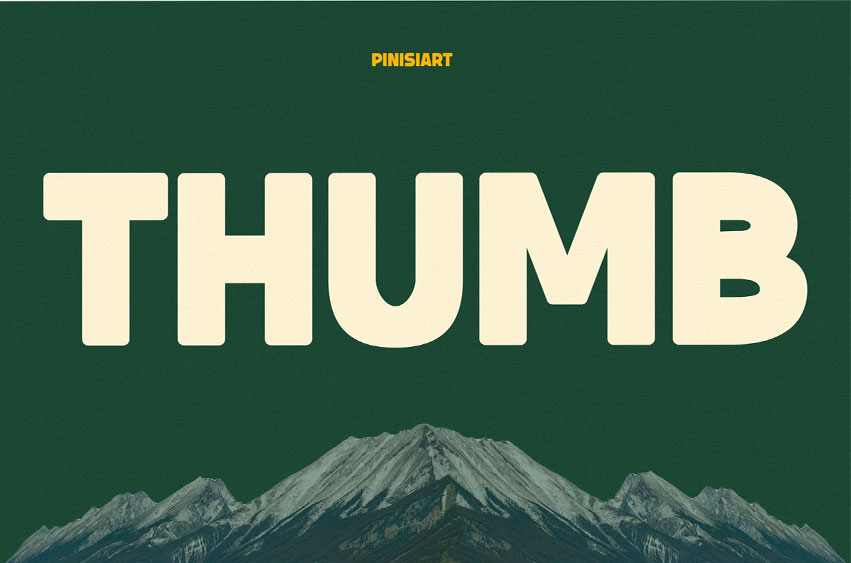
Thumb Font
Thumb Font is a bold retro display typeface that fuses vintage warmth with modern clarity. Each letter carries geometric balance, confident width, and smooth corners—creating a timeless look with strong visual rhythm. The sturdy proportions and tight spacing make it perfect for designers who love nostalgic aesthetics with a modern twist. Its confident structure and soft contrast flow deliver a visual presence that feels both classic and contemporary.
Designed for impactful branding, editorial design, and standout packaging, THUMB captures attention while staying versatile across digital and print projects. From outdoor posters and clothing labels to bold ad campaigns and shop signage, it helps messages stand tall and speak clearly. The font’s modern retro appeal works beautifully in lifestyle branding, creative studios, and any project needing a bold statement with personality.
. Key Features :
• Retro Bold Feel – Inspired by classic headlines with modern proportions
• Smooth Corners & Geometric Shapes – Delivers balanced yet confident letterforms
• Versatile Use – Ideal for logos, posters, packaging, and editorial work
• High Readability – Maintains clarity in both large and small display sizes
• Timeless Character – Blends nostalgia with modern energy for authentic visual storytelling